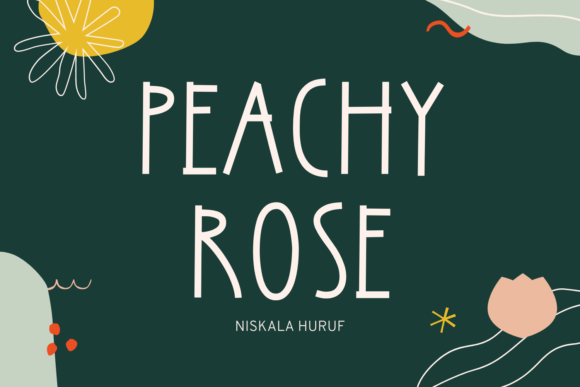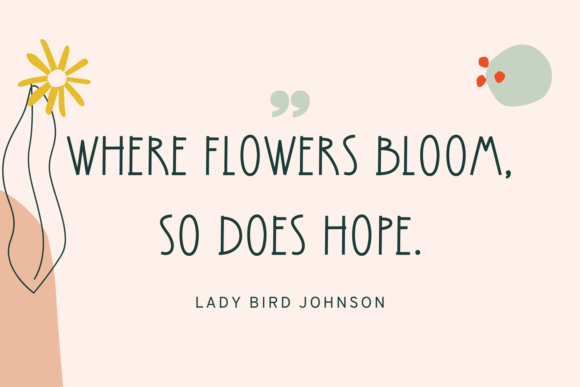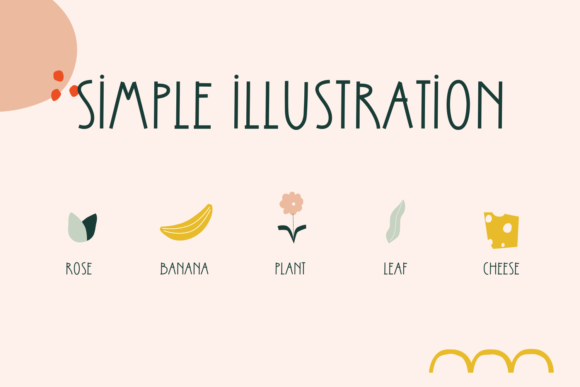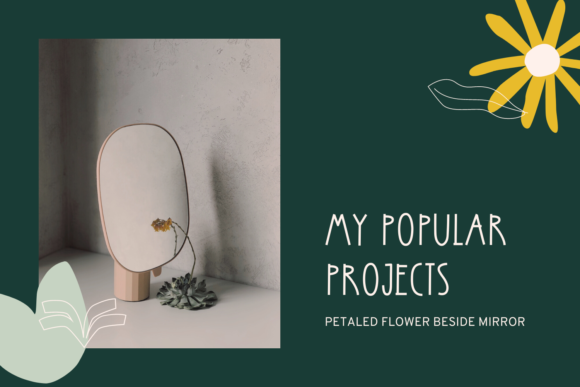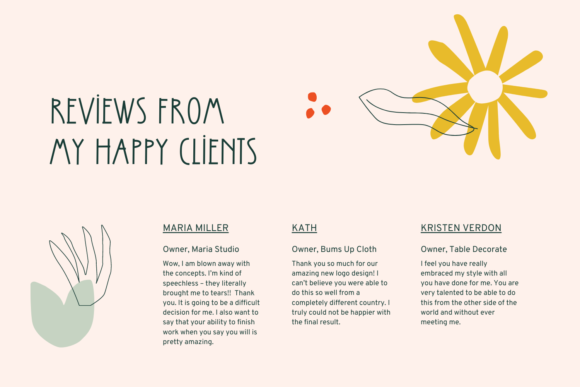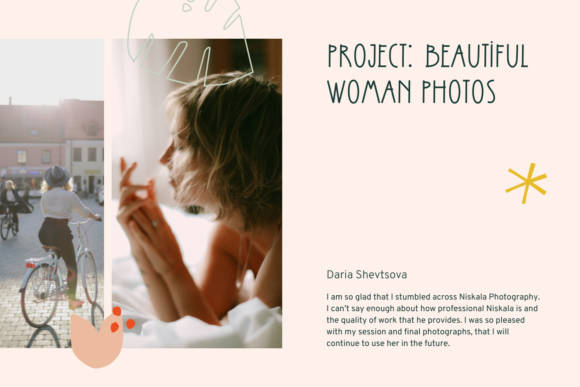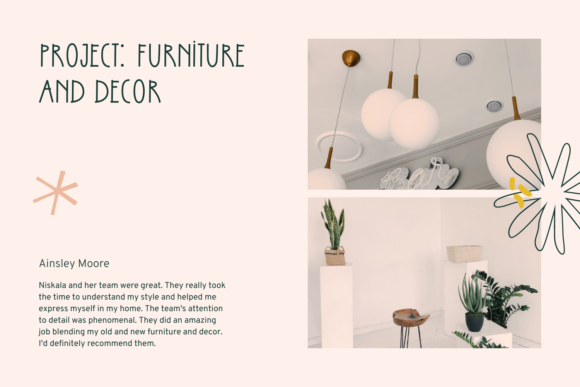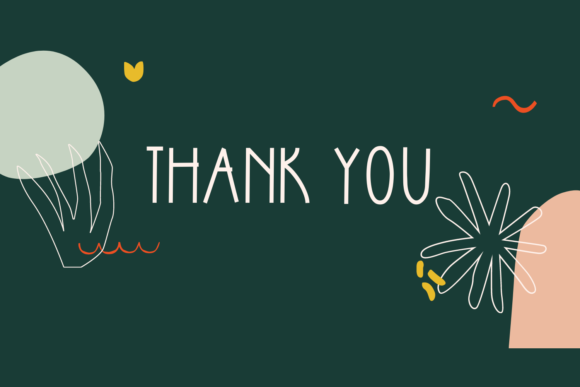
Peachy Rose is a tall and thin display font. With distinctive and very well-assorted characters, this font will add a solemn look to your beautiful creations while making them stand out and come alive!